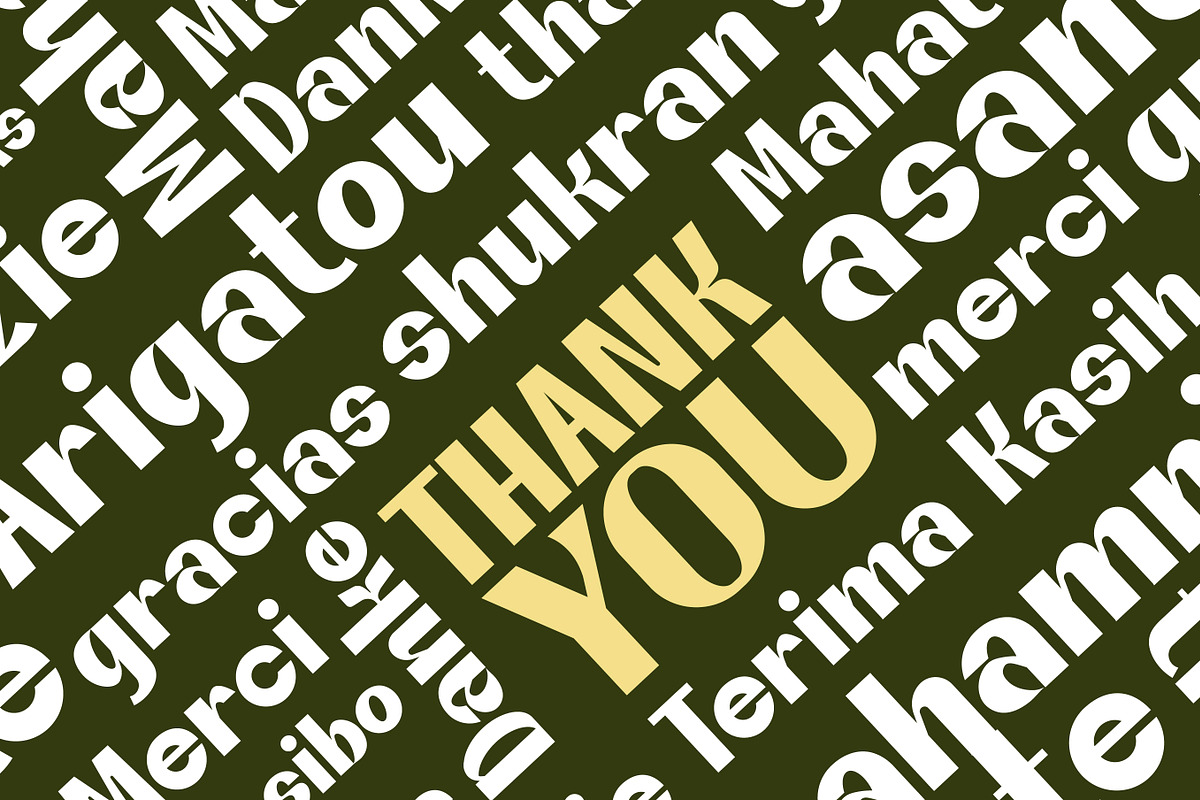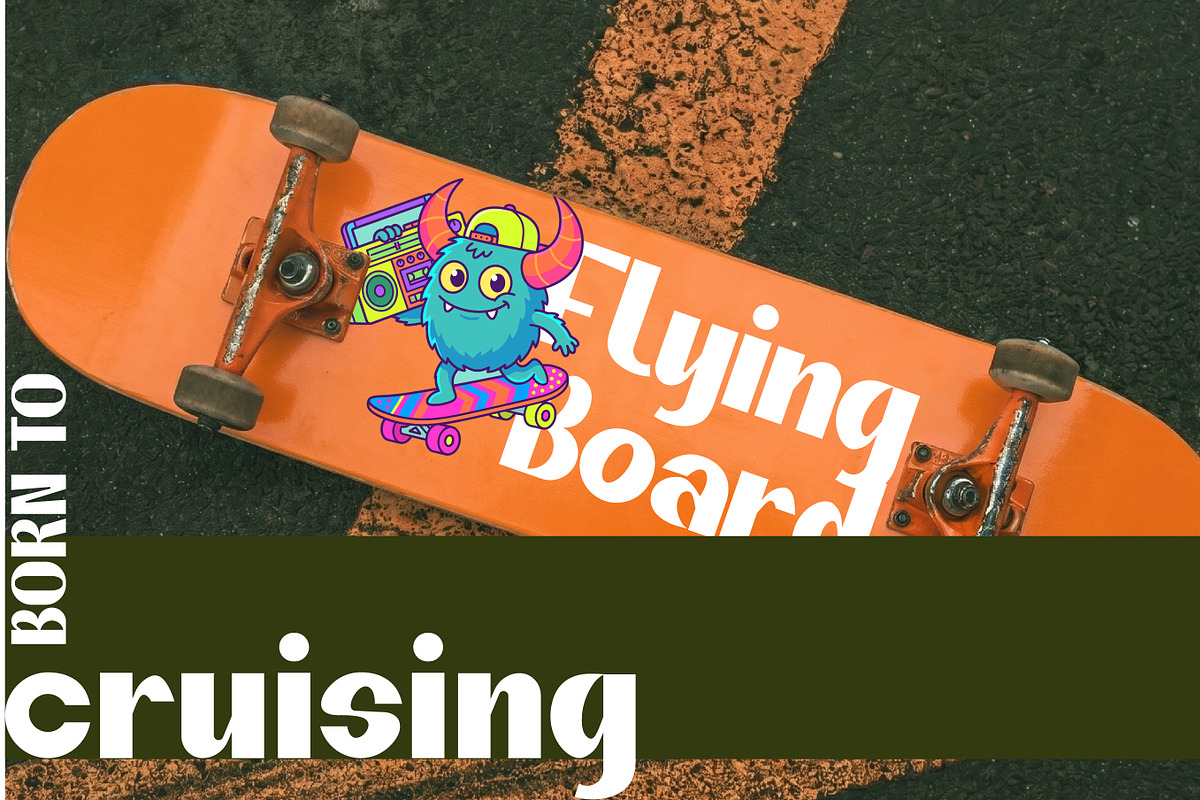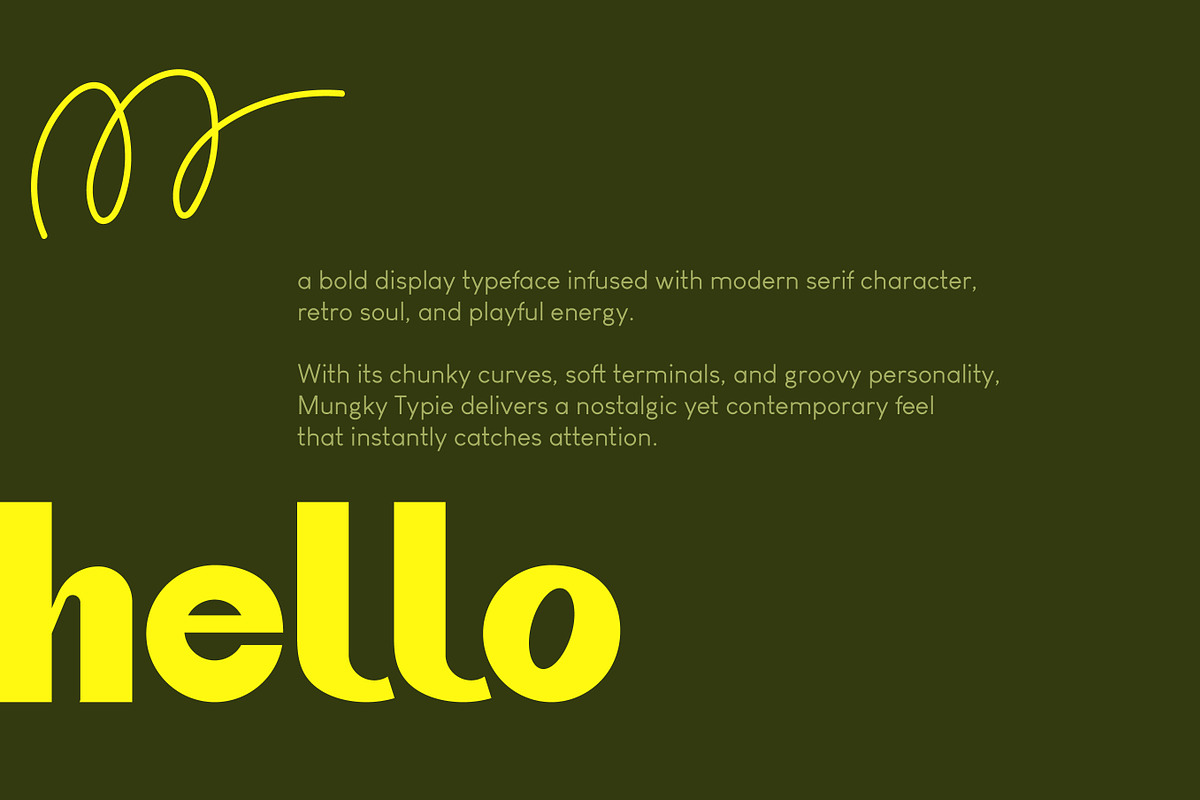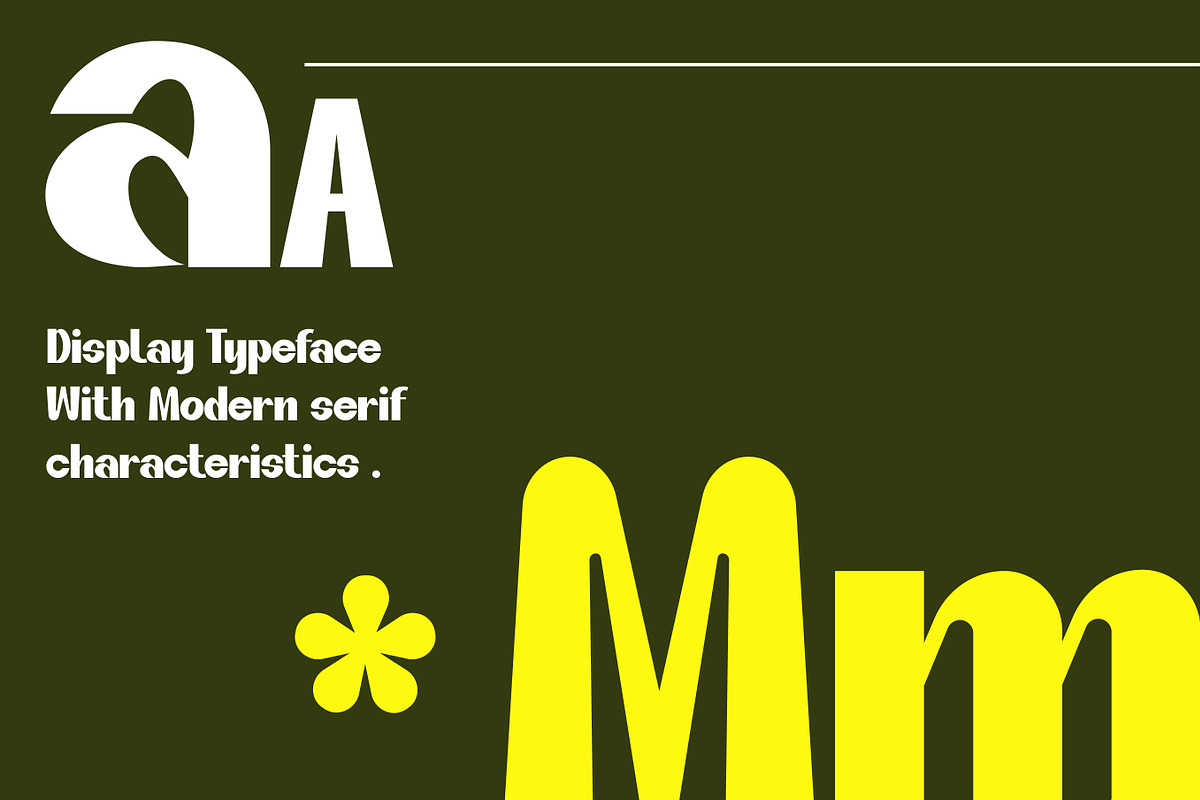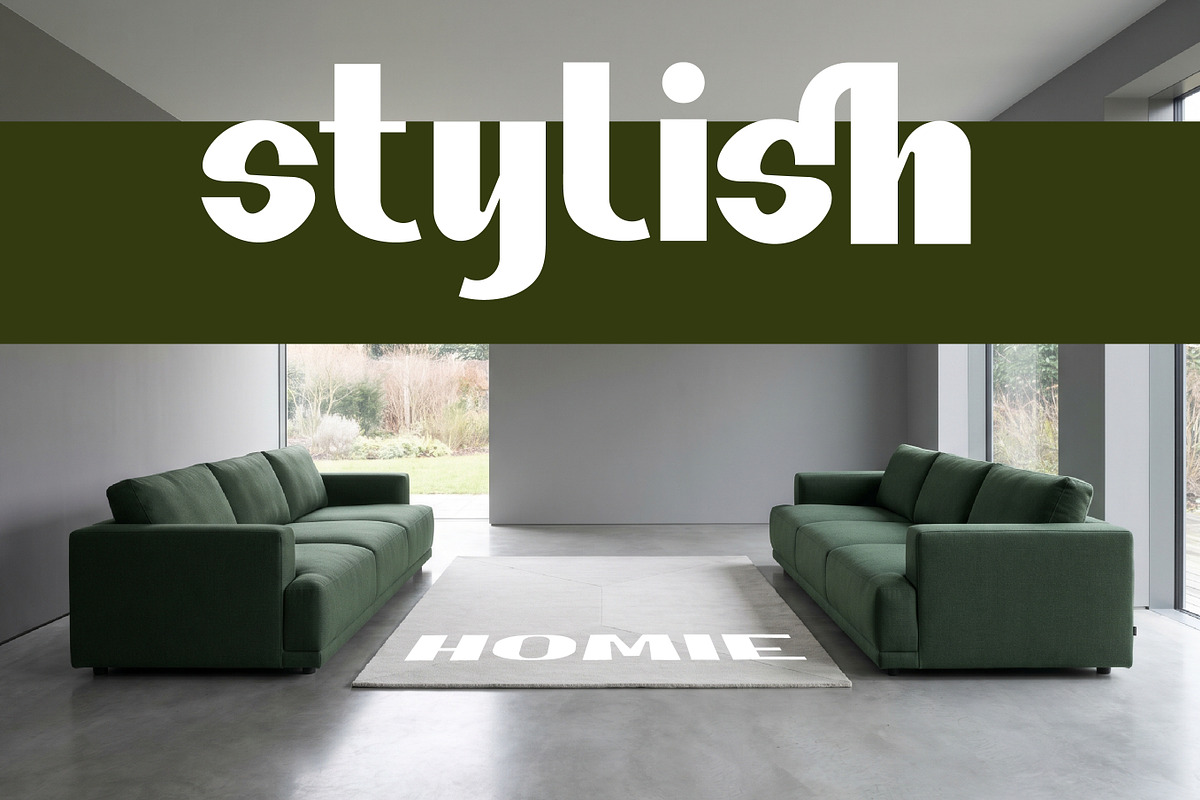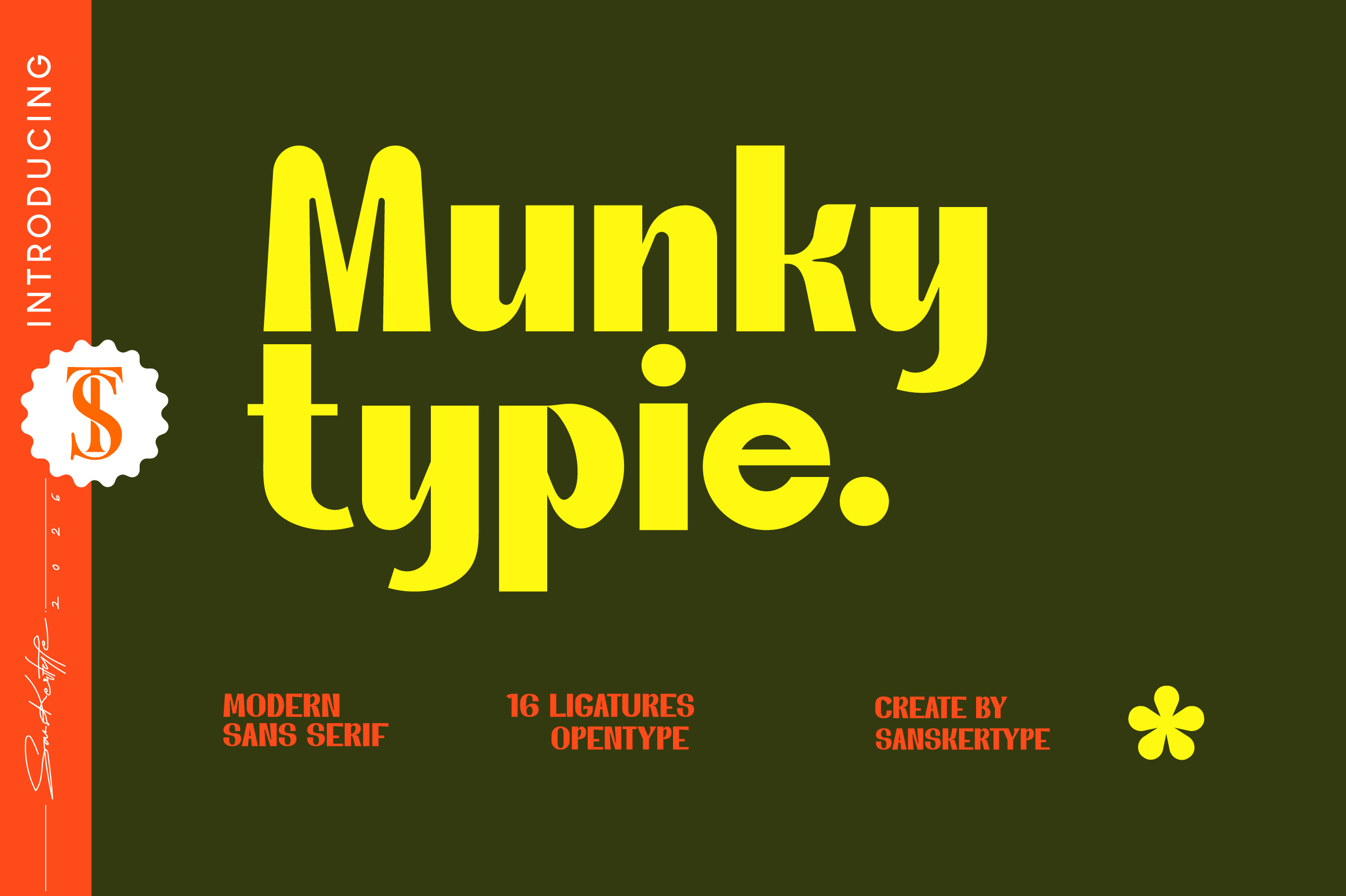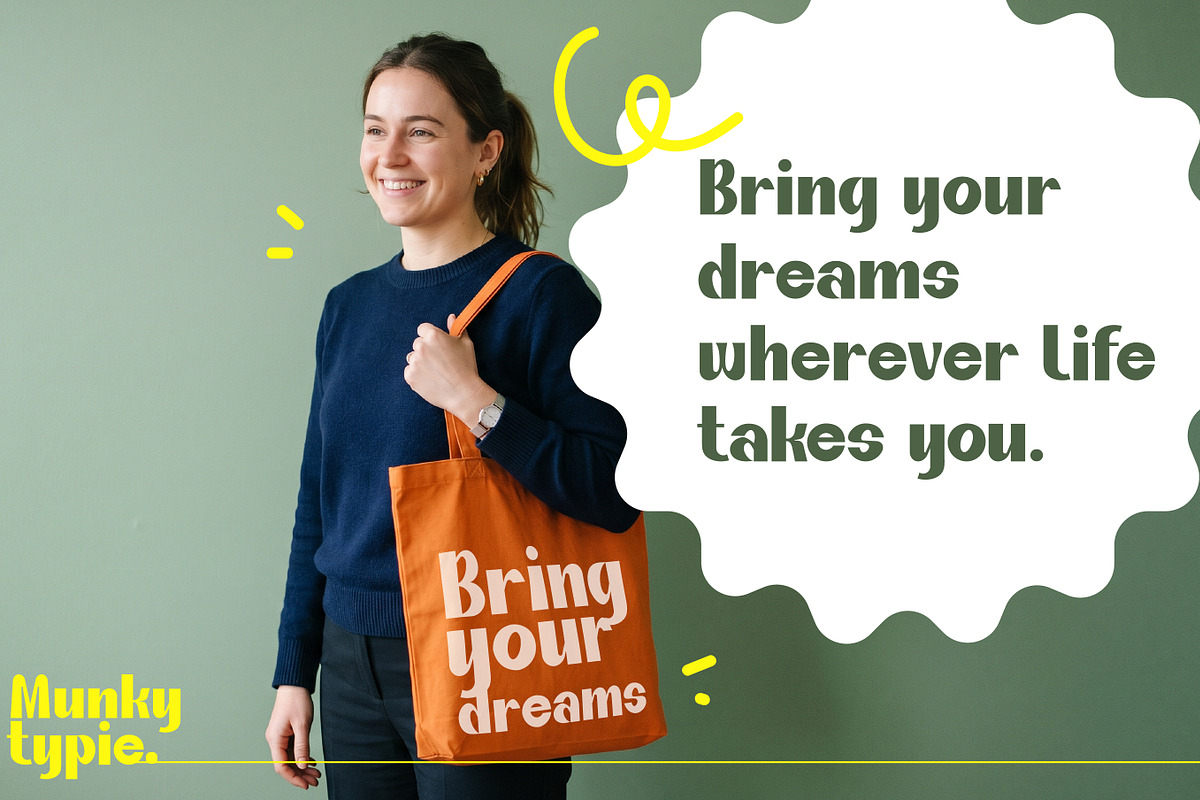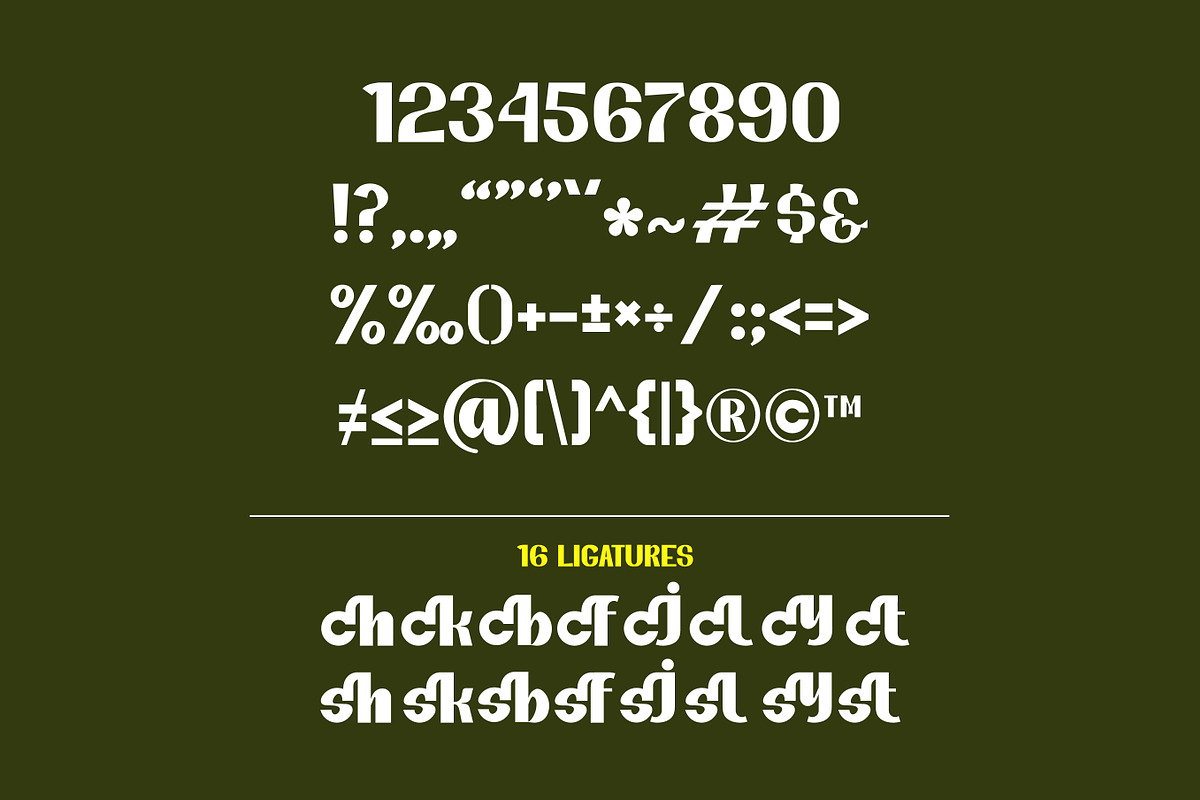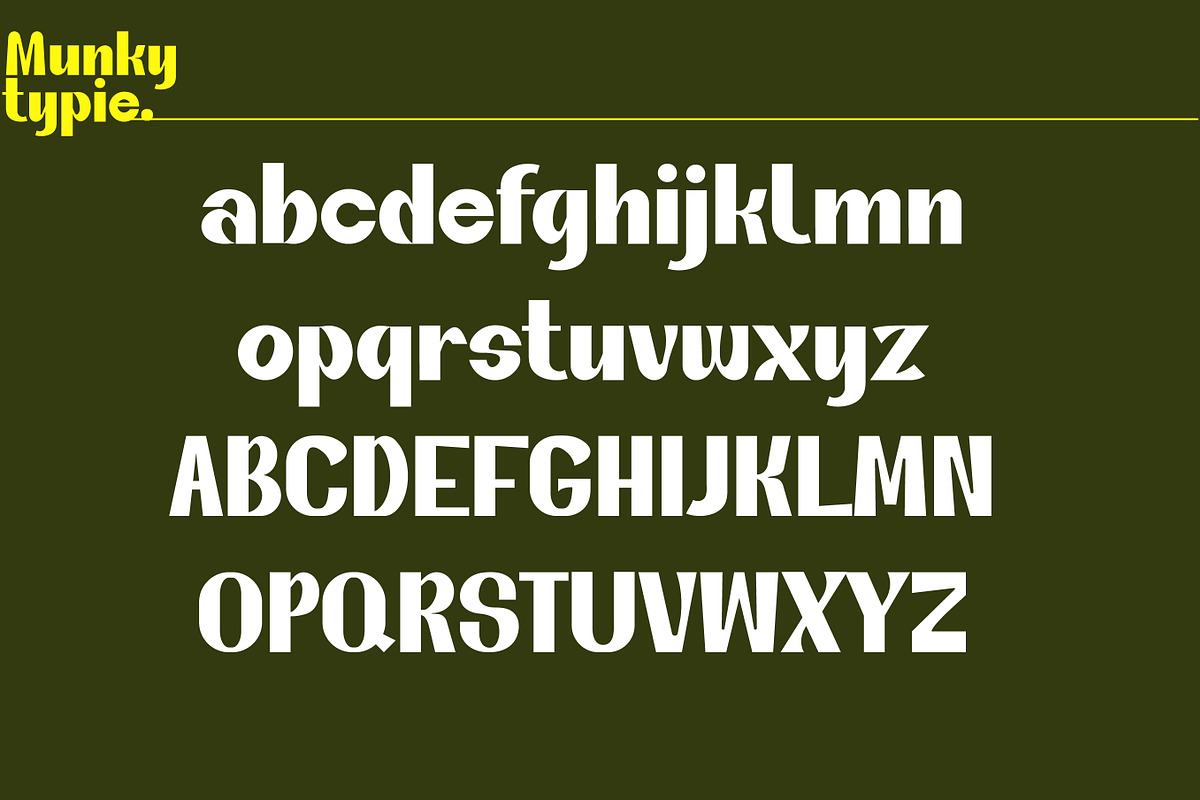
MunkyTypie - Modern Sans Serif Font
Munky Typie is a bold and playful modern sans serif typeface designed to make your designs stand out instantly. Featuring strong geometric shapes, smooth curves, and stylish ligatures, this font delivers a fresh retro-modern aesthetic perfect for creative and eye-catching projects.
With its unique personality and clean structure, Munky Typie works beautifully for branding, posters, headlines, packaging, social media graphics, and editorial layouts. The included 16 OpenType ligatures add extra style and flexibility, giving your typography a more dynamic and custom look.
Logo & Branding
Posters & Headlines
Editorial & Magazine Layouts
Fashion Branding
Album Covers
Creative Typography Projects
Uppercase & Lowercase Letters